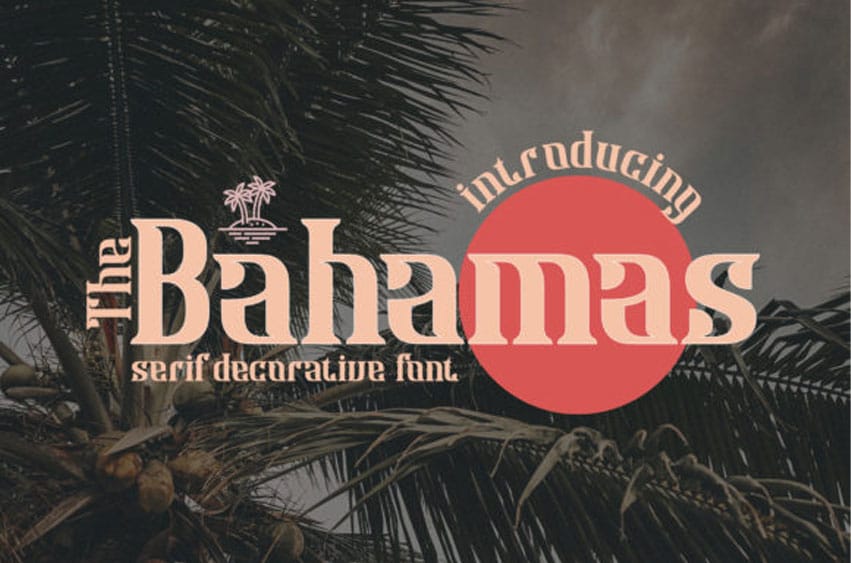
The Bahamas Font is a serif font that was inspired by a vintage surfing poster design, and each letter flows just like a wave!
This font will look great used in logo designs, labels, t-shirt prints, product packaging, invitations, advertising, and other.